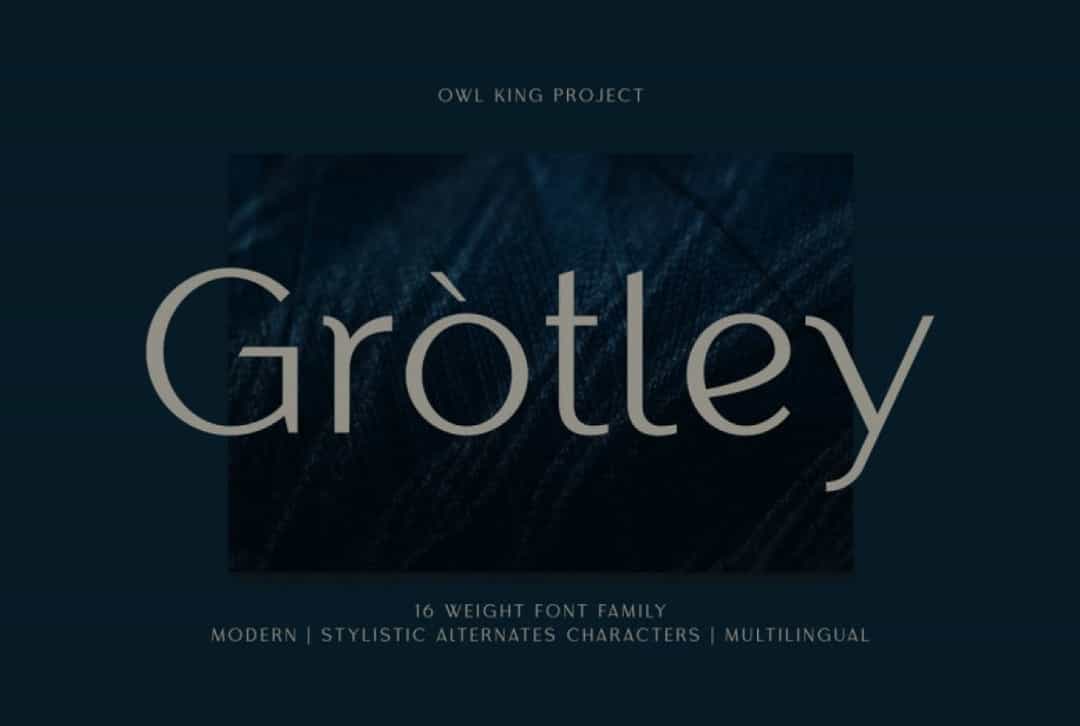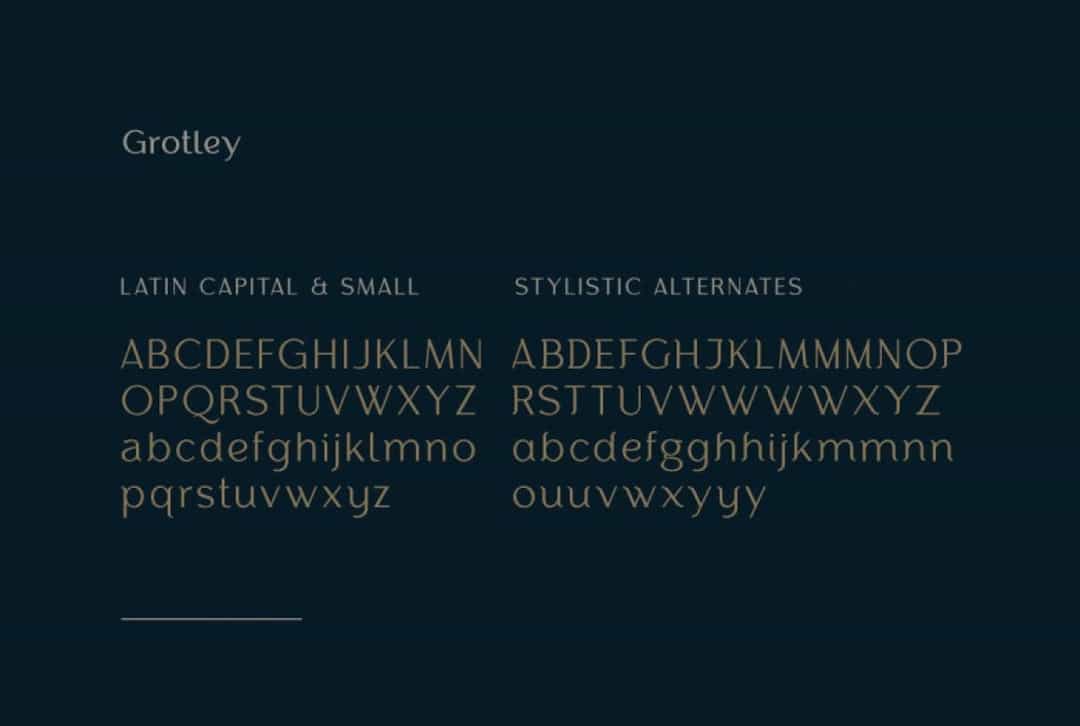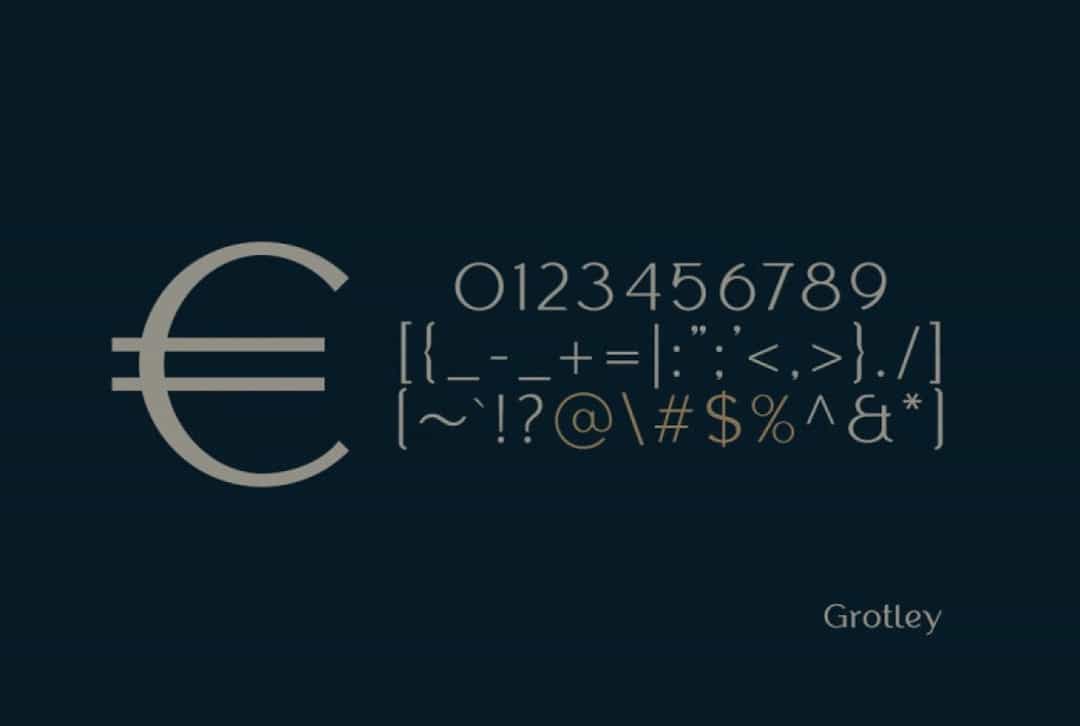
Grotley Font Family draws its inspiration from the ever-evolving fashion and the concept of luxurious vacation spots, and offers an elegant modern style suitable for logos, long texts and titles of any length.